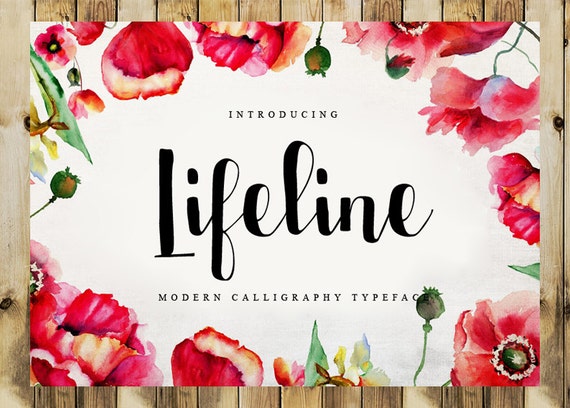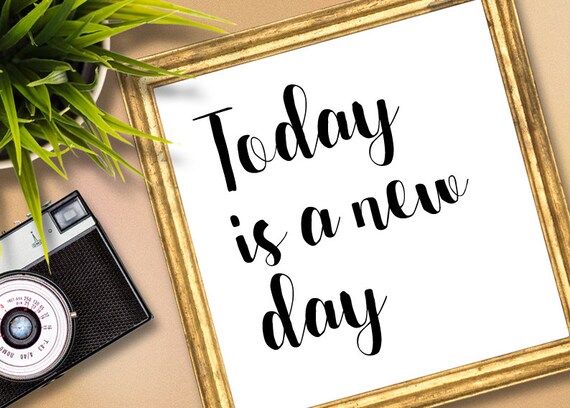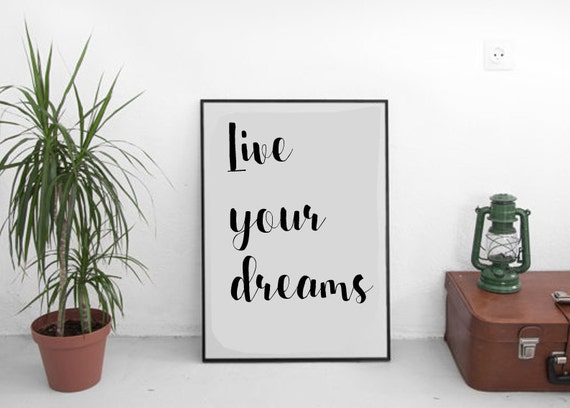
Digital handwritten font - New loving Every Minute Font is sweet calligraphy-style.
Beautiful on invitation like greeting cards, branding materials, business cards, quotes, posters, and more!